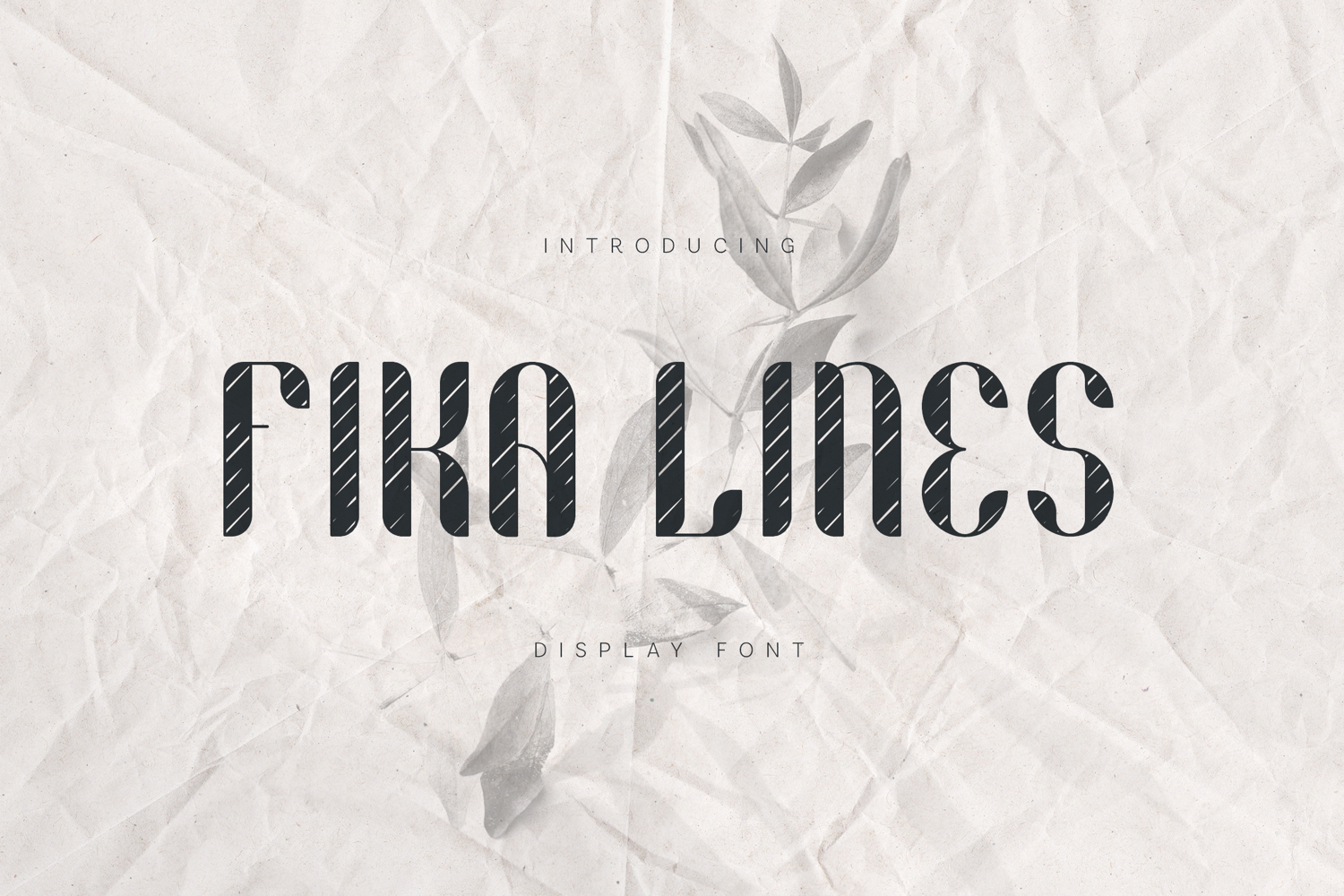
FIKA LINES Display Font
Fika Lines is a modern display font with a soft, handcrafted character and distinctive lined texture. Inspired by Scandinavian simplicity and calm editorial aesthetics, this typeface blends bold letterforms with subtle diagonal line detailing, creating a warm yet contemporary visual voice.
Designed to stand out, Fika Lines works beautifully for posters, branding, headlines, packaging, quotes, album covers, and creative editorial layouts. Its rounded shapes and decorative texture give designs a human, approachable feel while maintaining strong readability and impact.
Fika Lines is ideal for designers looking to add personality, softness, and modern charm to their typography—where display type becomes part of the story.